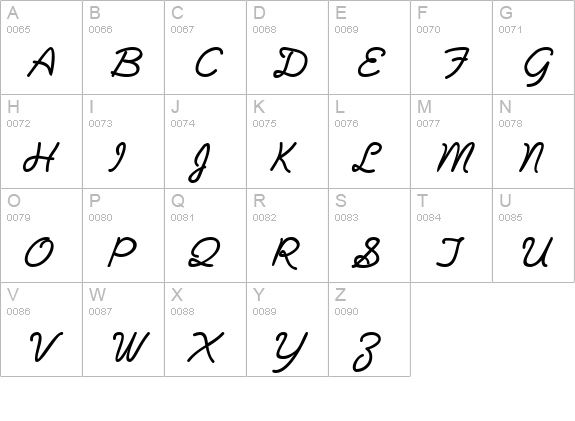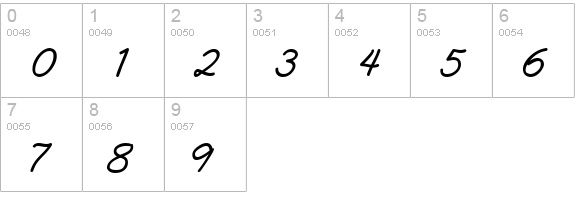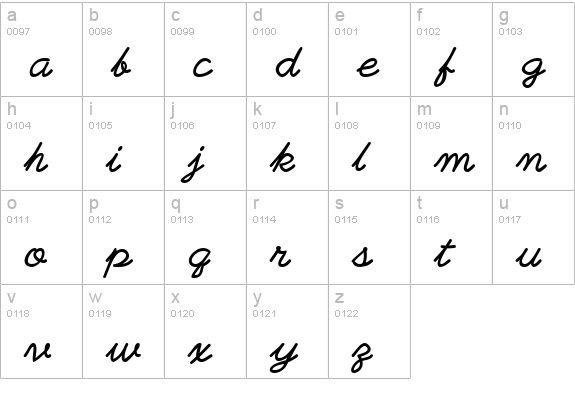
PlainPensle BoldItalic Font Details
Introducing PlainPensle BoldItalic, a captivating and versatile font that will bring a touch of elegance and sophistication to any design project. Whether you're designing a logo, creating eye-catching graphics, or crafting stunning typography, this font is sure to make a bold statement. With its unique combination of boldness and italic styling, PlainPensle BoldItalic exudes confidence and adds a dynamic element to your designs. The carefully crafted letterforms are both strong and graceful, ensuring that your message is conveyed with utmost clarity and impact. One of the best features of PlainPensle BoldItalic is that it is available for free download at FontsMarket.com. This means that you can enhance your designs without breaking the bank. Simply head over to FontsMarket.com and effortlessly elevate your projects with this exceptional font. Whether you're a professional designer or an enthusiastic beginner, PlainPensle BoldItalic will quickly become your go-to font. Its versatility allows it to seamlessly adapt to a wide range of design styles, from modern and sleek to vintage and nostalgic. It effortlessly captures attention and leaves a lasting impression. The attention to detail in PlainPensle BoldItalic is unparalleled. Each stroke is meticulously crafted, resulting in a font that is both visually pleasing and highly readable. The combination of bold and italic seamlessly blends together, creating a harmonious balance that is visually striking. In addition to its aesthetic appeal, PlainPensle BoldItalic is also incredibly easy to work with. Its versatility allows it to be used in various design applications, including print and digital media. Whether you're designing a poster, a website, or a social media graphic, this font will elevate your project to new heights. So why wait? Download PlainPensle BoldItalic for free at FontsMarket.com and unlock the potential to create stunning designs that leave a lasting impression. Add a touch of sophistication and elegance to your projects with this exceptional font, and watch as your designs come to life in ways you never thought possible.